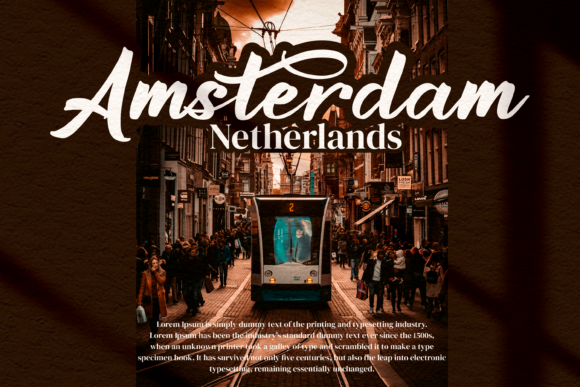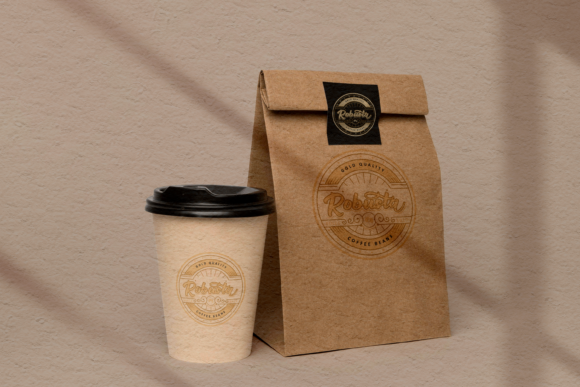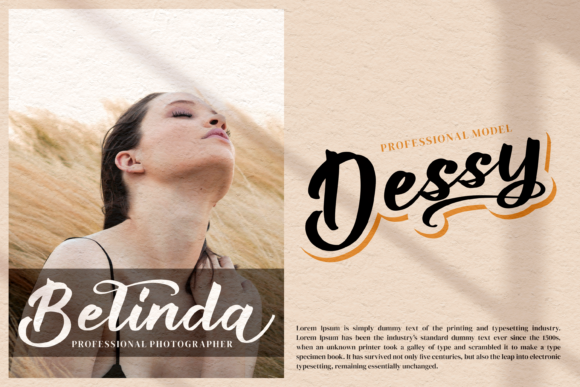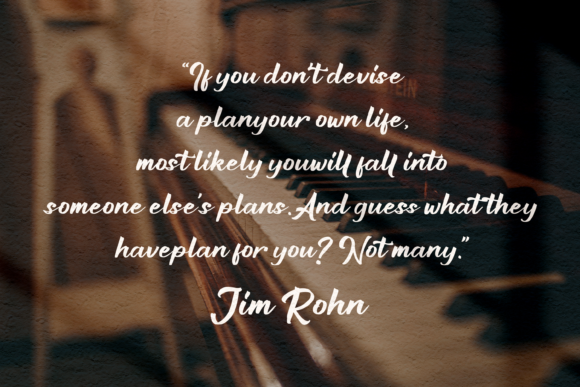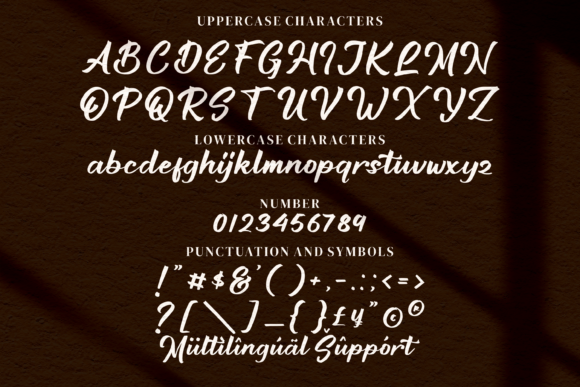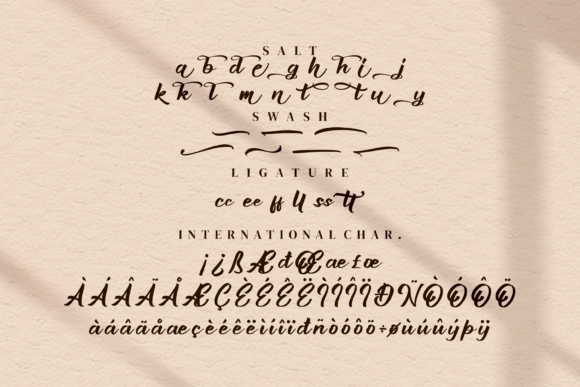
Austyke Font: Elevate Your Designs with a Retro Touch
In the world of typography, fonts play a vital role in conveying the tone and personality of a design. For designers and crafters looking to add a touch of nostalgia and boldness to their work, Austyke Font is an excellent choice. This gorgeous and bold handwritten font is specifically crafted to give your headlines and logotype projects a retro flair that’s sure to captivate your audience.
The Characteristics of Austyke Font
Austyke Font boasts a strong, confident, and dynamic appearance that makes it perfect for designs that require a statement piece. Its bold and handwritten style reads well in various contexts, from headlines and titles to logotypes and branding materials. The font’s unique character is designed to evoke a sense of nostalgia, making it an ideal choice for projects that aim to capture a retro or vintage vibe.
What Makes Austyke Font Stand Out?
One of the standout features of Austyke Font is its PUA (Private Use Area) encoding. This means that users can access all the glyphs and swashes with ease, allowing for greater flexibility and creativity in design. The PUA encoding enables designers to tap into a wide range of alternative characters, ligatures, and ornaments, making it possible to create complex and visually appealing designs.
Austyke Font is a versatile typeface that’s suitable for a variety of design applications, including:
- Branding and Logos: Create memorable and eye-catching logos that make a lasting impression on your audience.
- Headlines and Titles: Add a touch of boldness and personality to your headlines and titles with Austyke’s unique character.
- Signage and Posters: Use Austyke Font to create eye-catching signage and posters that grab attention.
- Digital and Print Media: Apply Austyke Font to your digital and print media projects, such as brochures, flyers, and social media graphics.
Tips for Using Austyke Font Effectively
To get the most out of Austyke Font, consider the following tips:
- Experiment with Sizes and Colors: Austyke Font looks great in various sizes and colors. Experiment with different combinations to find the perfect fit for your design.
- Mix and Match with Other Fonts: Combine Austyke Font with other fonts to create visual interest and add depth to your design.
- Use Swashes and Glyphs: Take advantage of Austyke’s PUA encoding to access a wide range of swashes and glyphs, adding a personal touch to your design.
Austyke Font is a stunning and bold handwritten font that’s perfect for designers and crafters looking to add a retro touch to their work. With its strong, confident, and dynamic character, Austyke Font is sure to elevate your designs and make them stand out. Whether you’re working on branding, headlines, or signage, Austyke Font is an excellent choice. So why wait? Download Austyke Font today and start creating stunning designs that capture the essence of nostalgia and boldness.